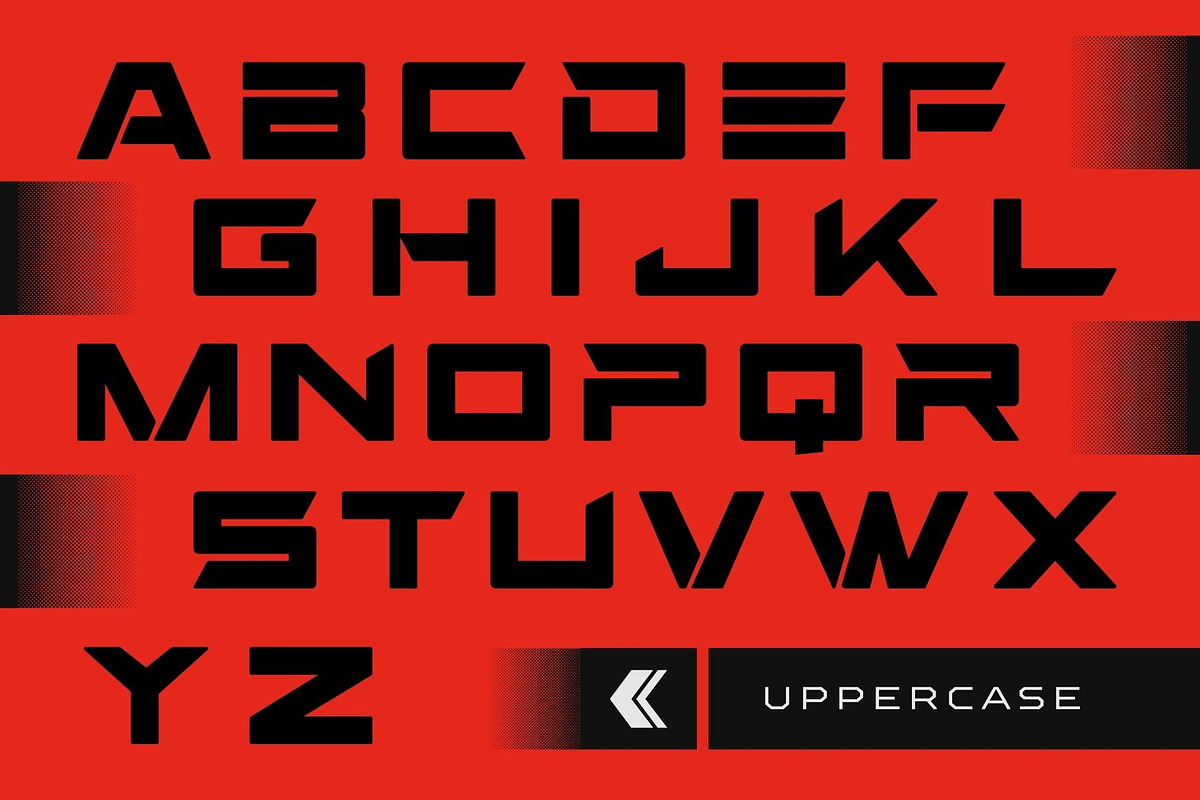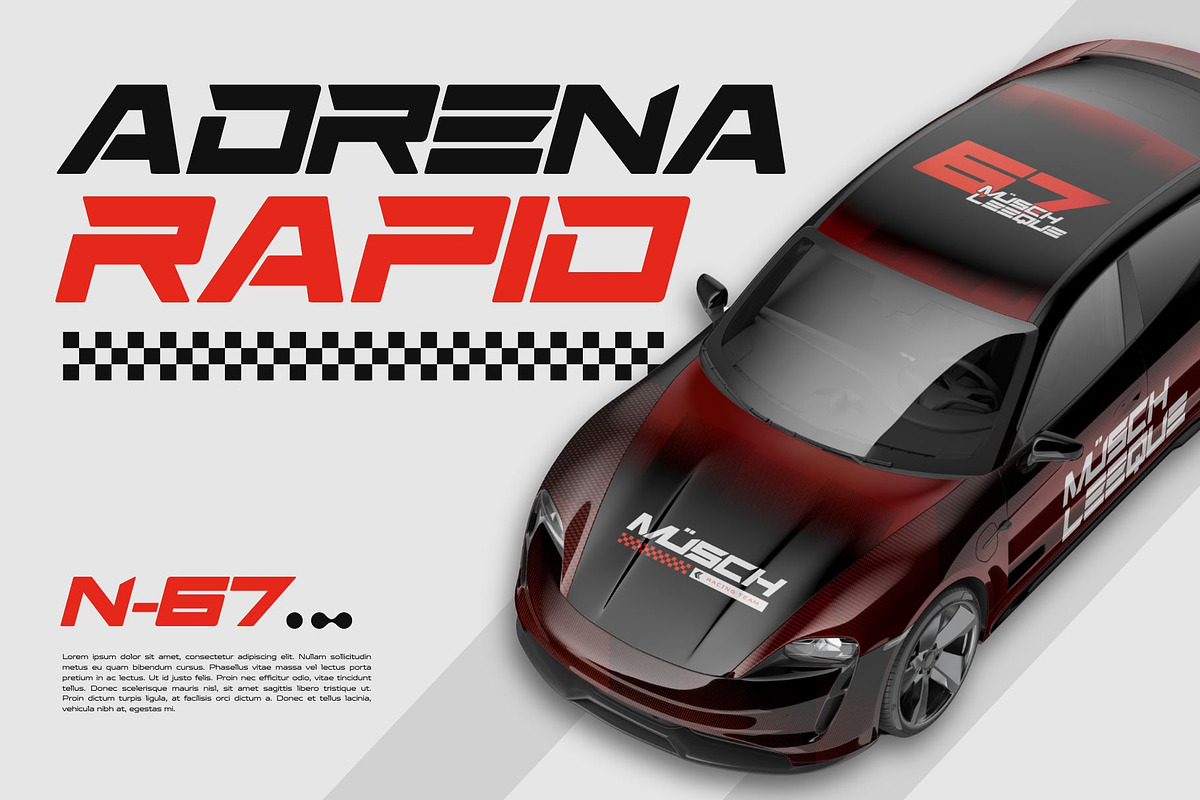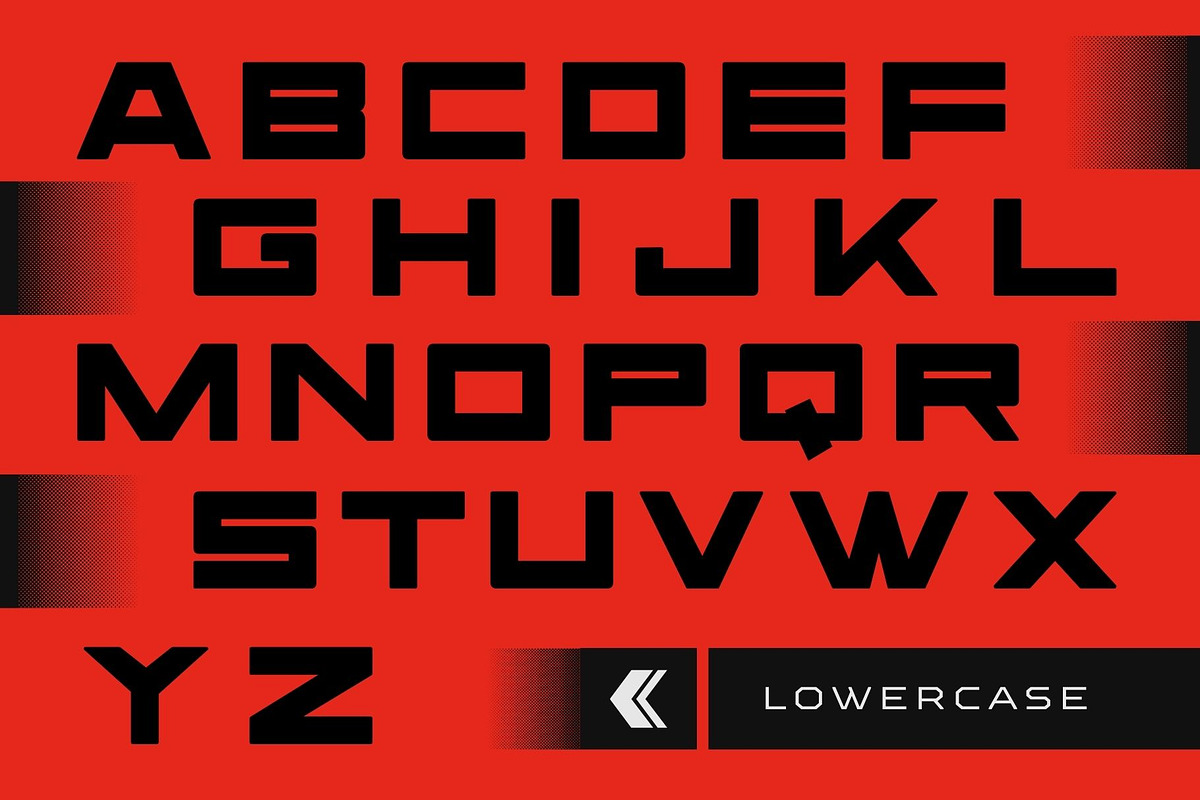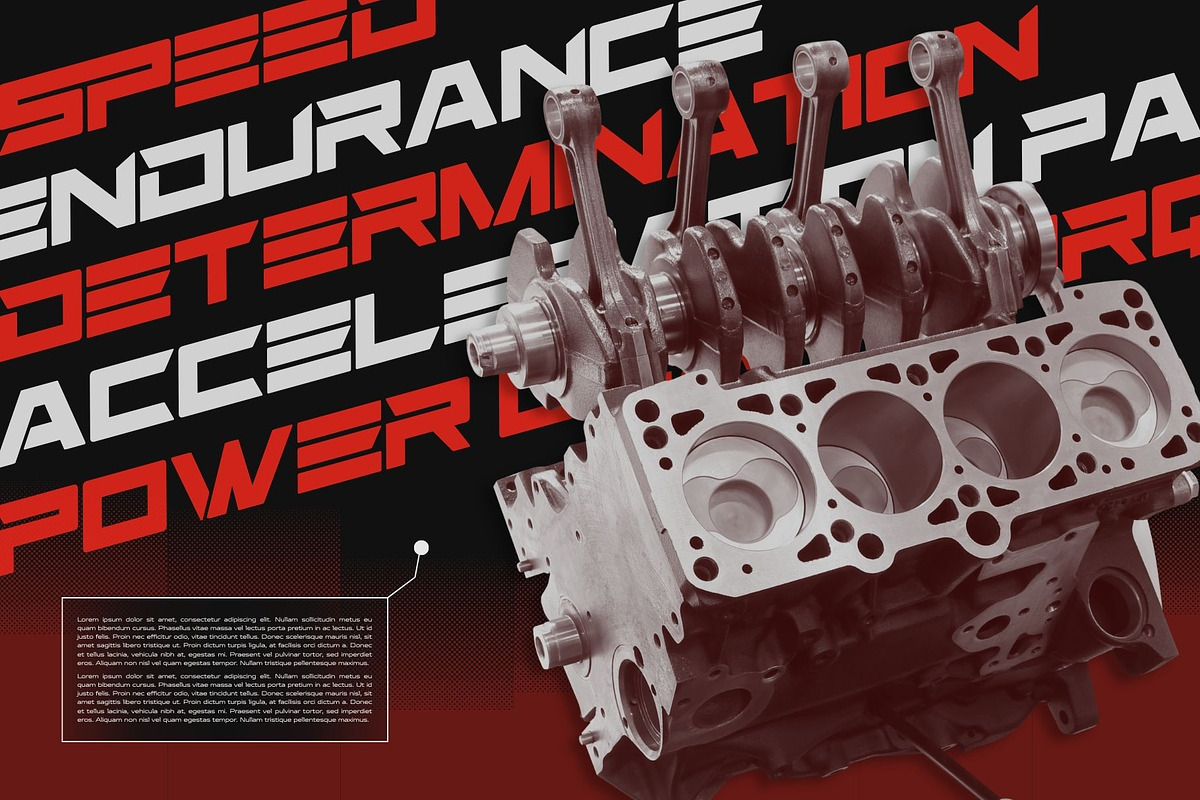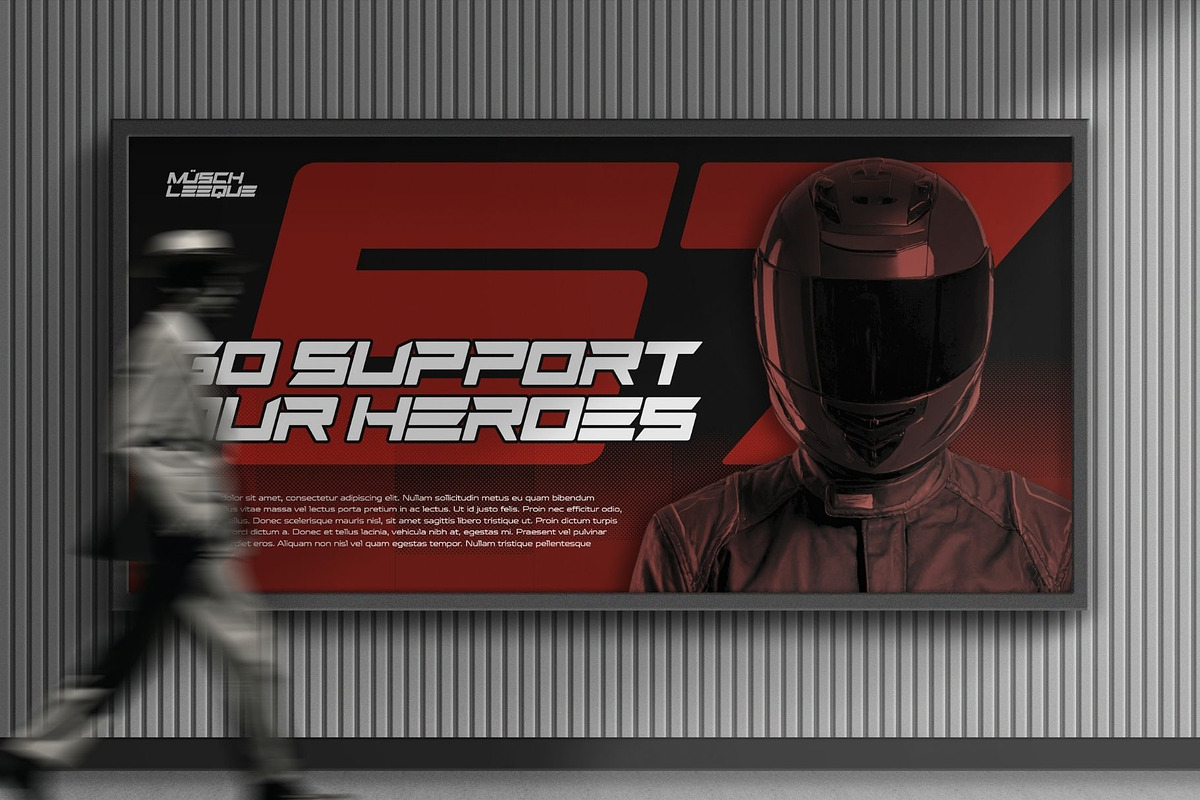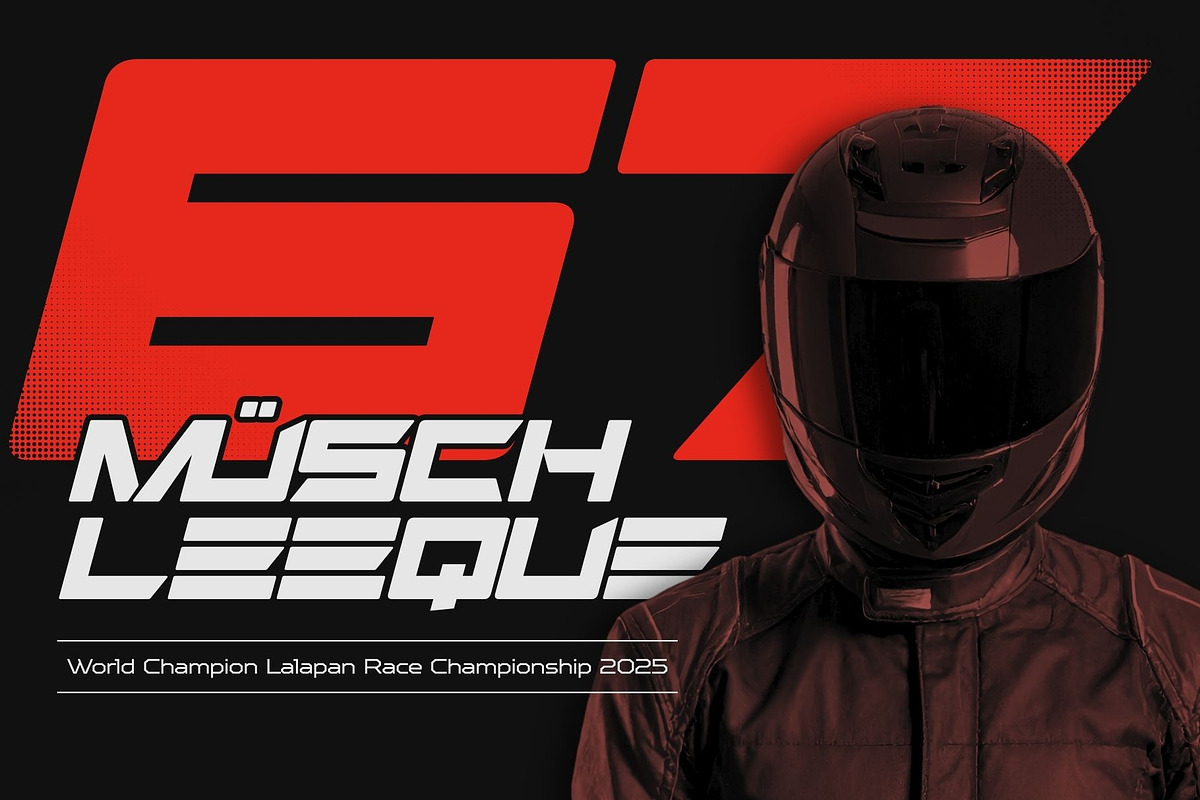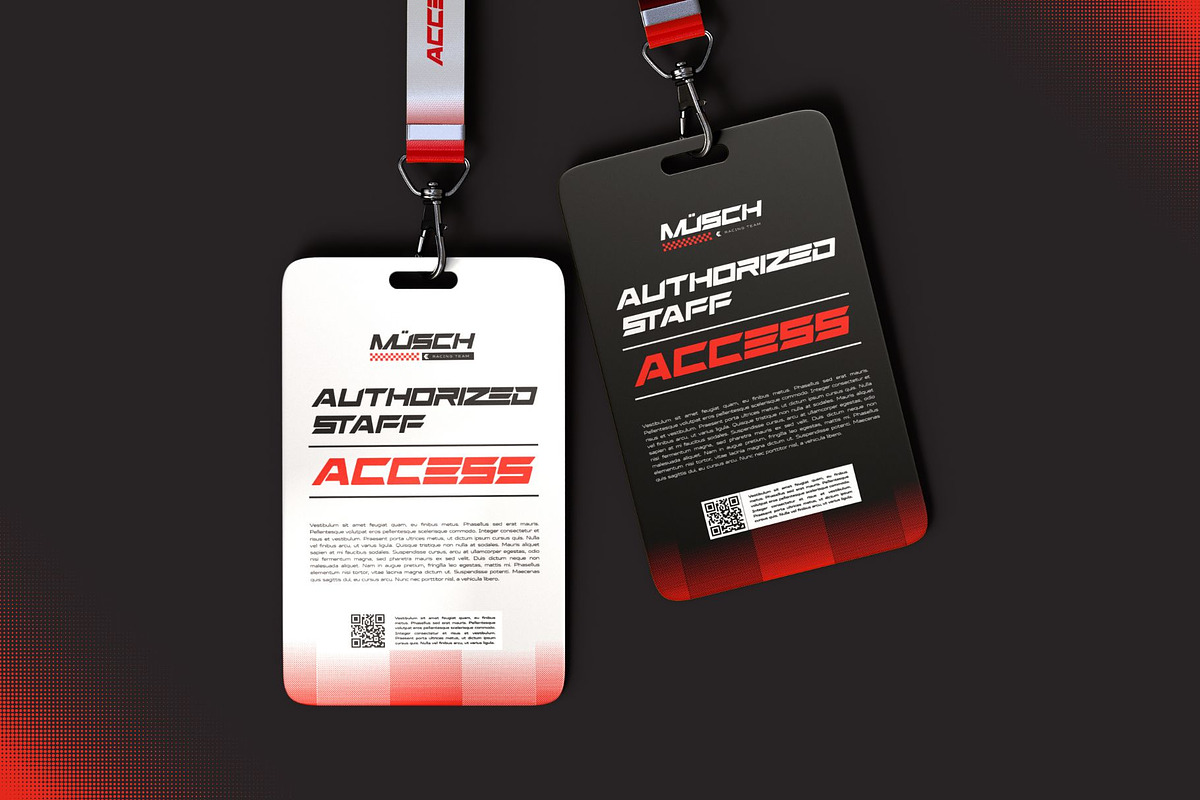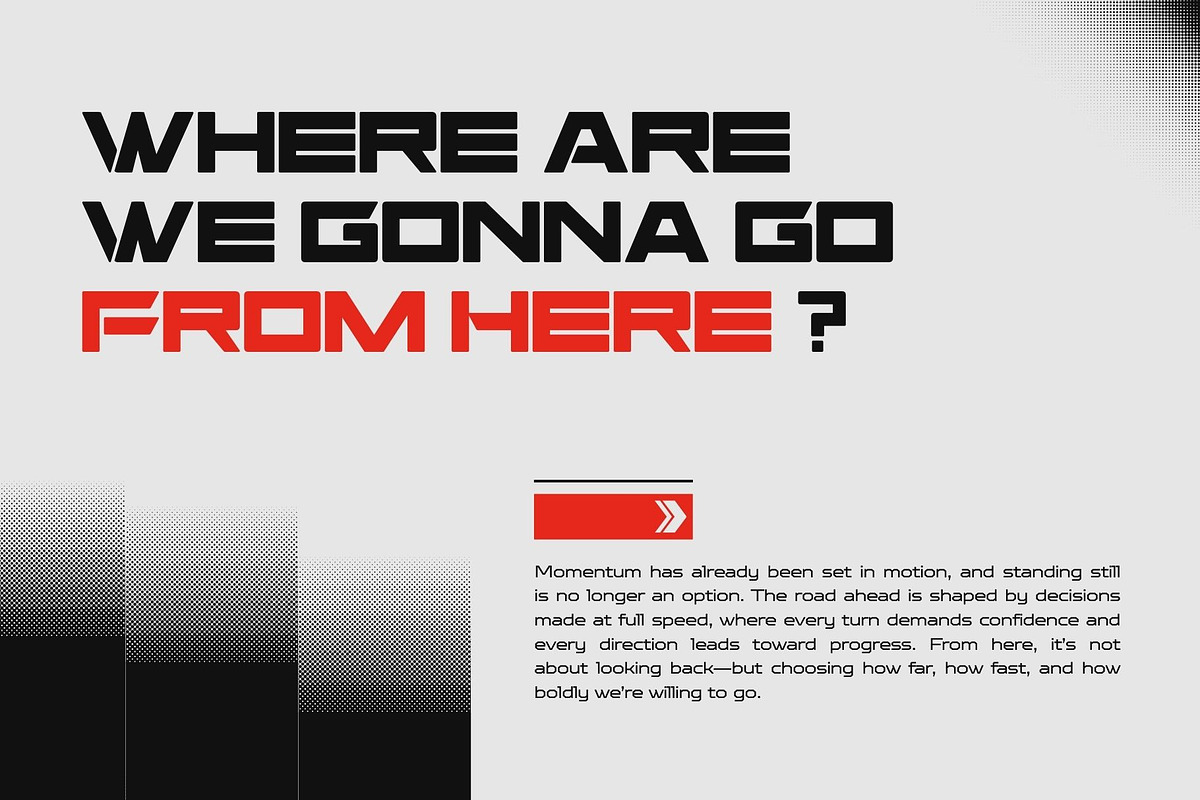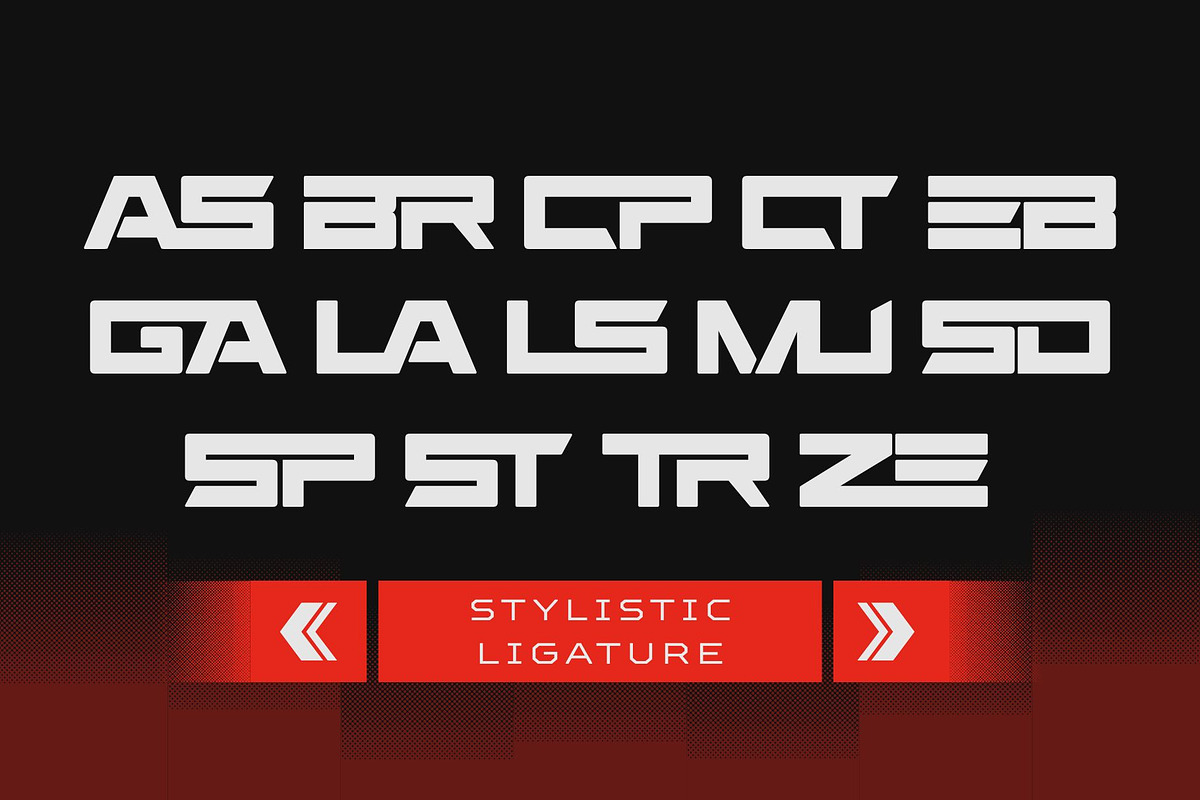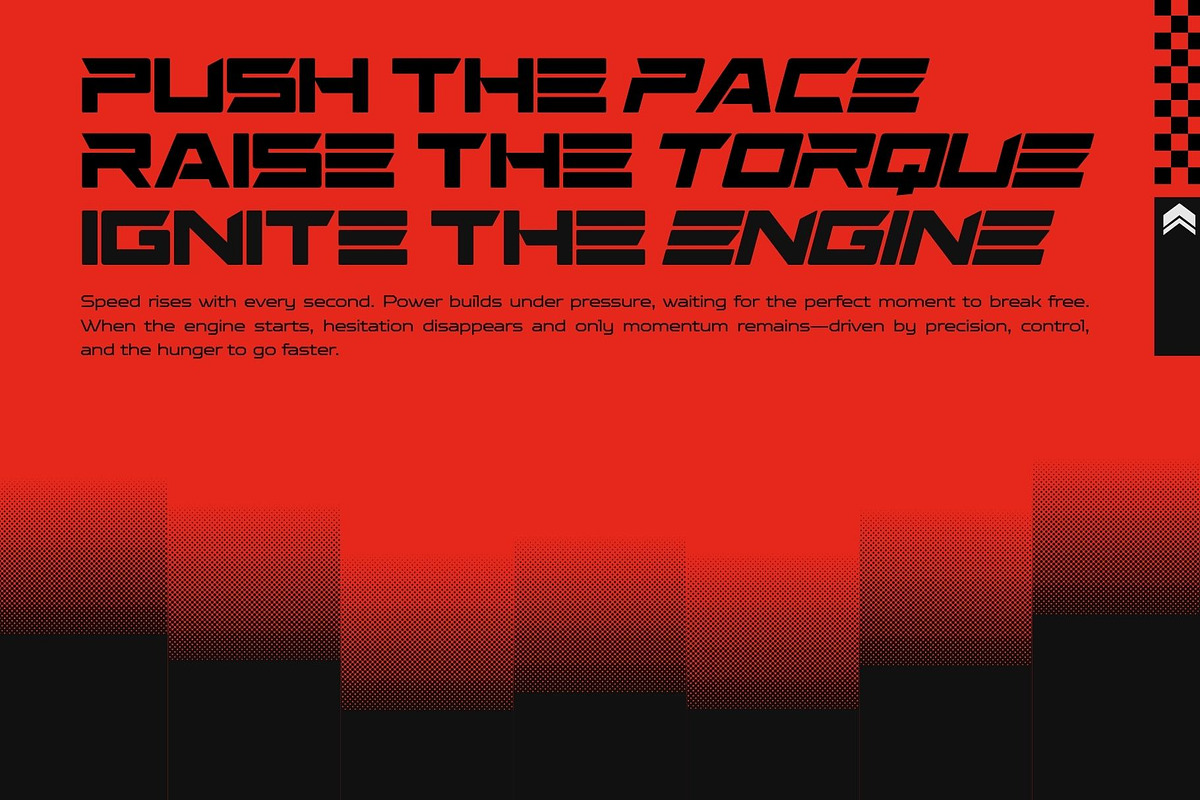
Musch Sports - Branding Logo Font
Dominate the Field with Musch Sports: The Definitive Athletic Typeface Engineered for performance and built for speed, Musch Sports is a high-octane font family designed to give your creative projects a professional edge. Whether you're designing for the stadium or the street, this typeface captures the raw energy of competitive sports.
The Musch Sports Duo: Power & Motion This versatile family features two distinct styles crafted to work seamlessly together:
Musch Sports Regular: The backbone of your design. It’s bold, geometric, and commands authority. Ideal for primary headlines, varsity-style logos, and high-visibility scoreboard numbers.
Musch Sports Italic: Designed with a dynamic forward lean to represent speed and momentum. Perfect for race graphics, action-packed social media layouts, and "fast-paced" brand slogans.